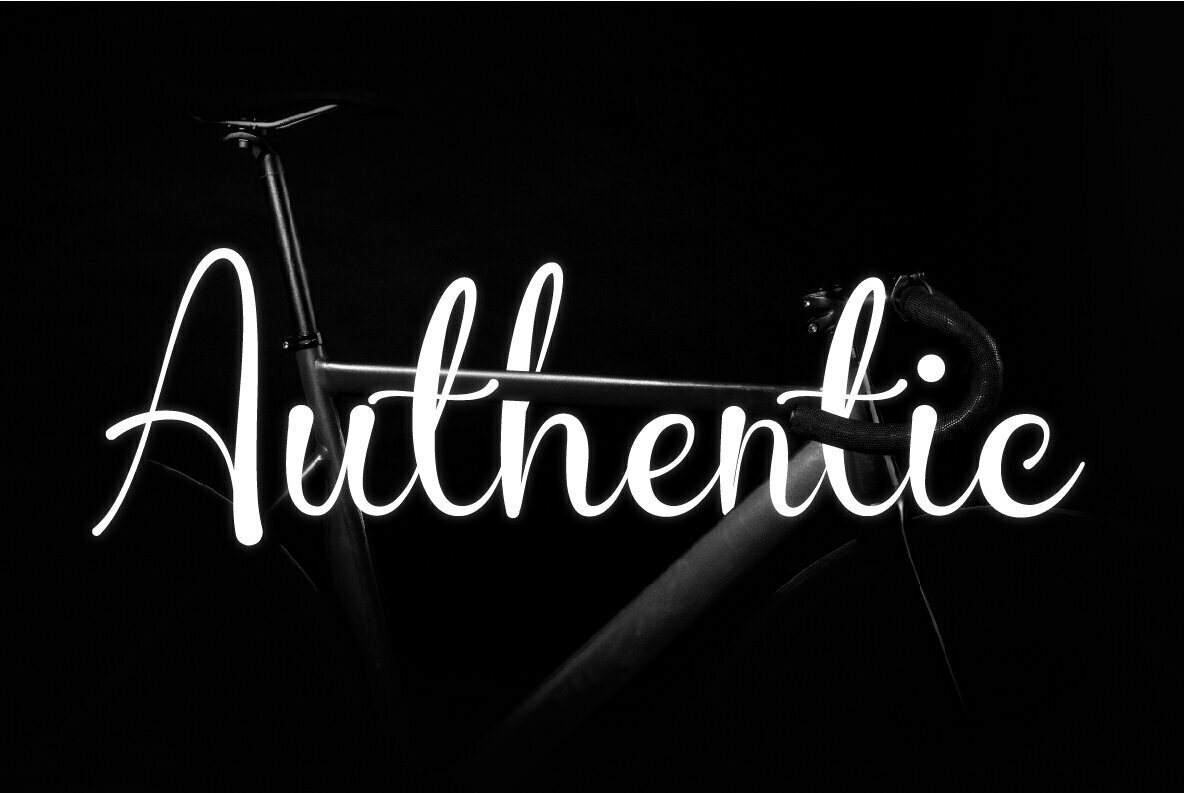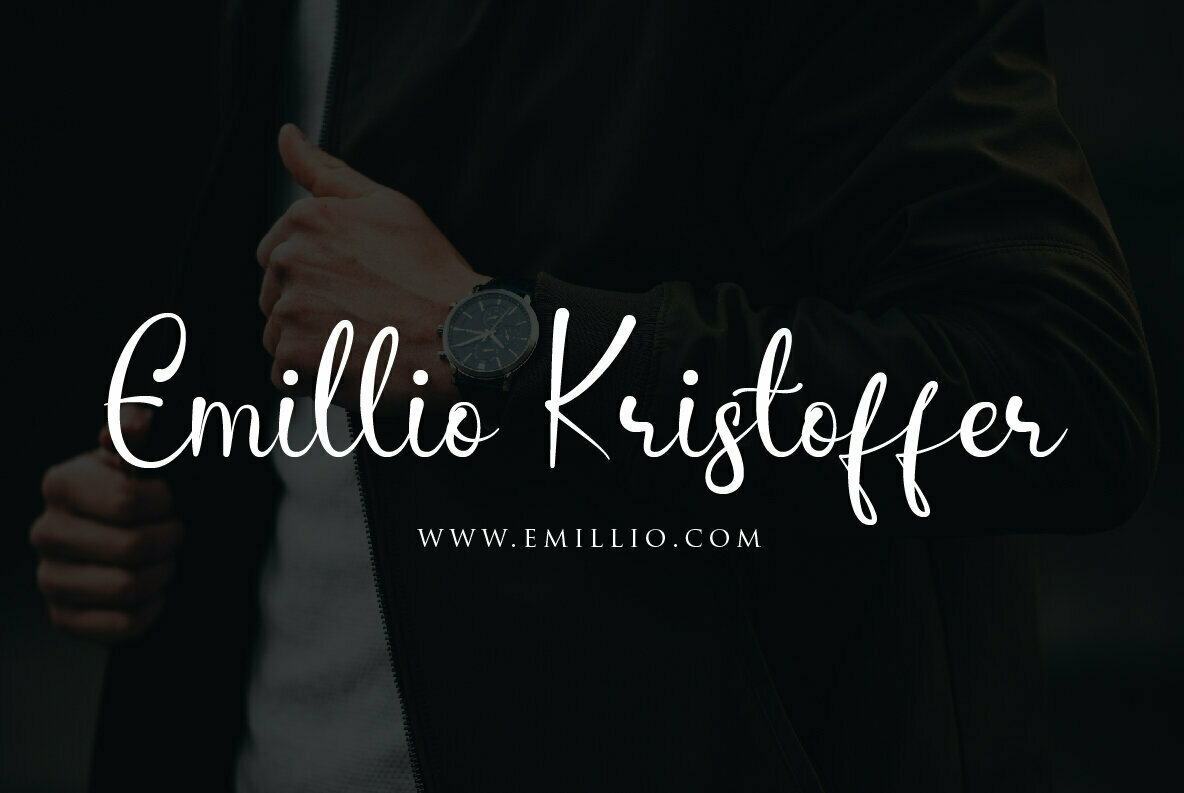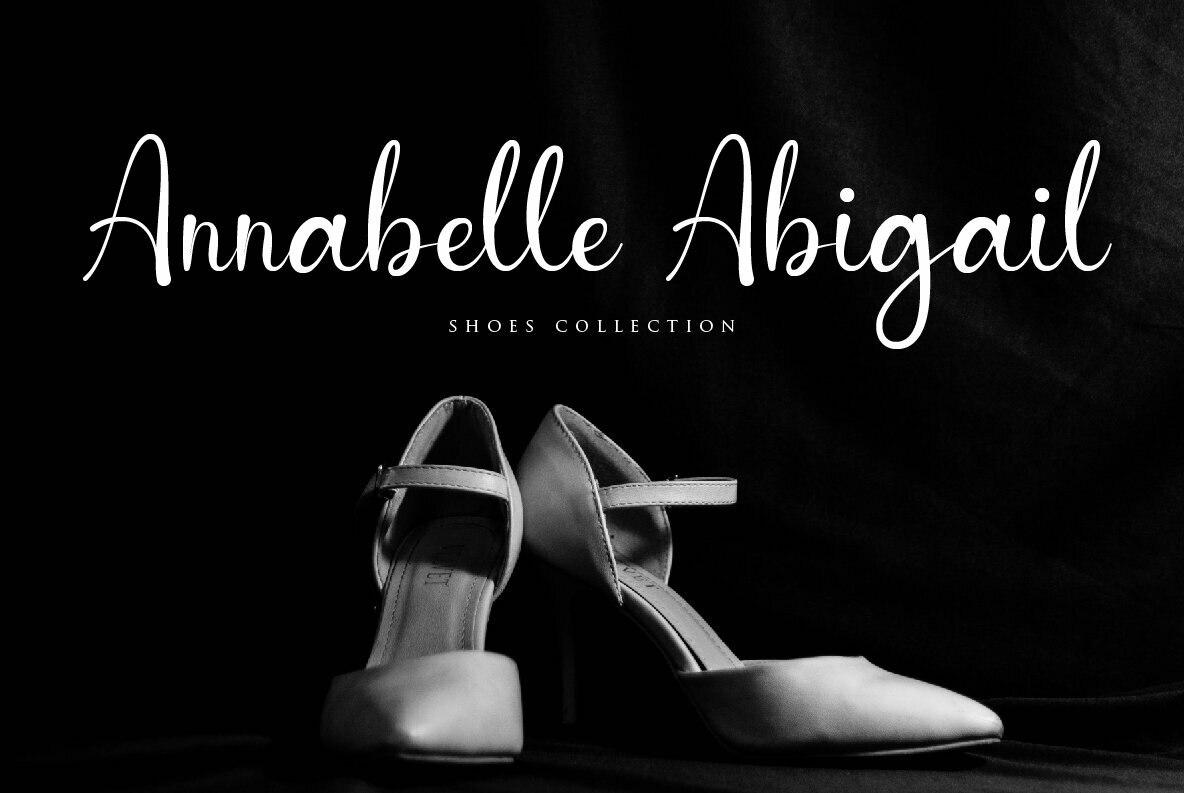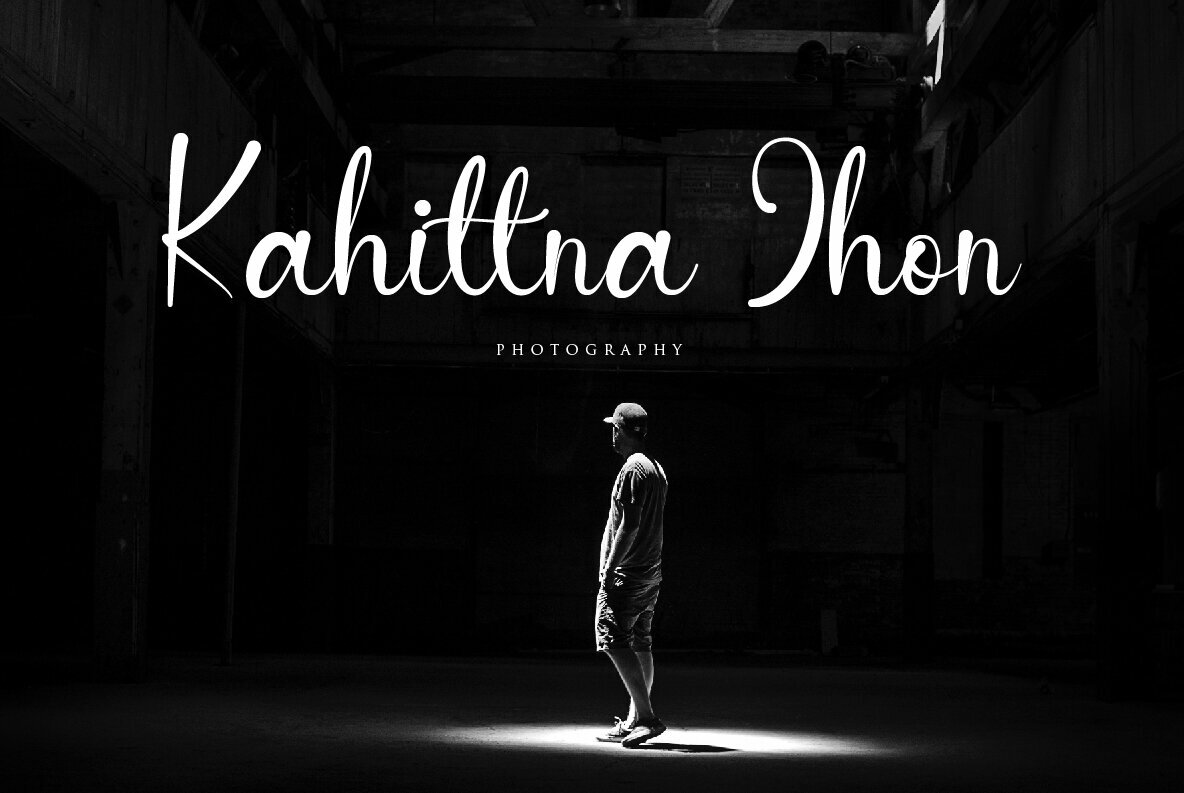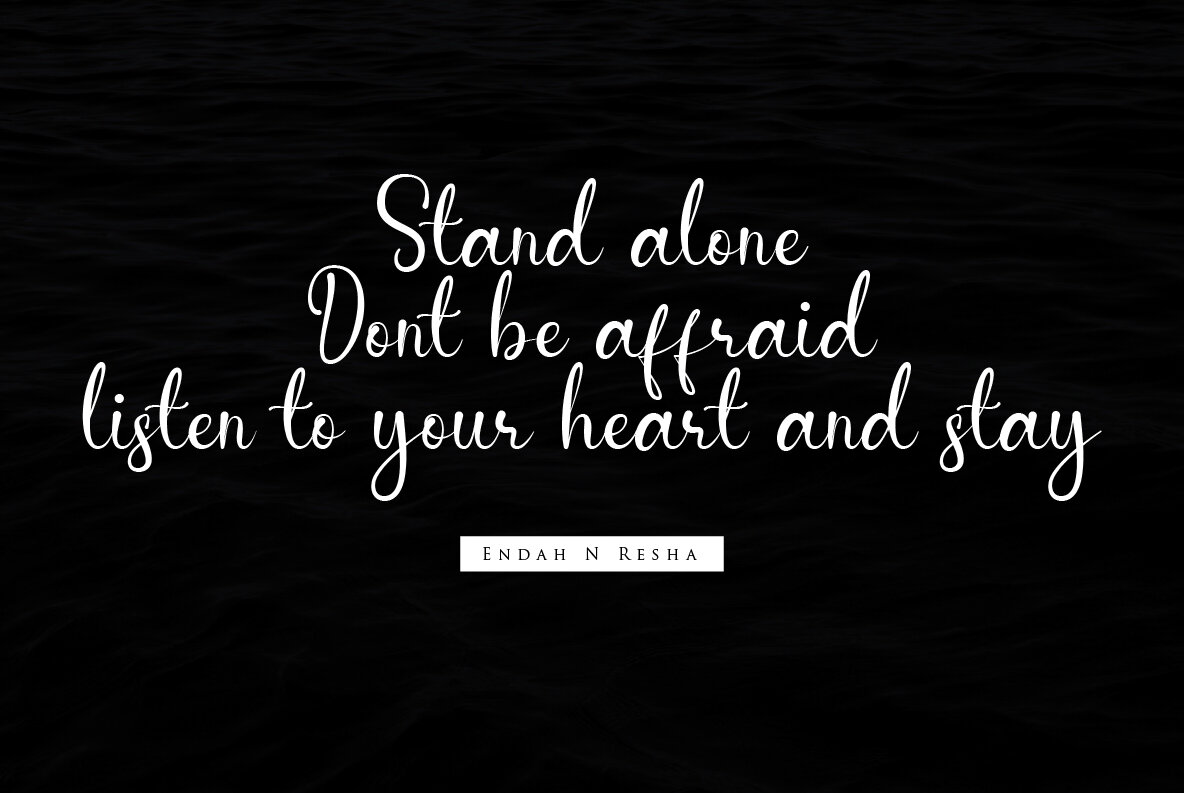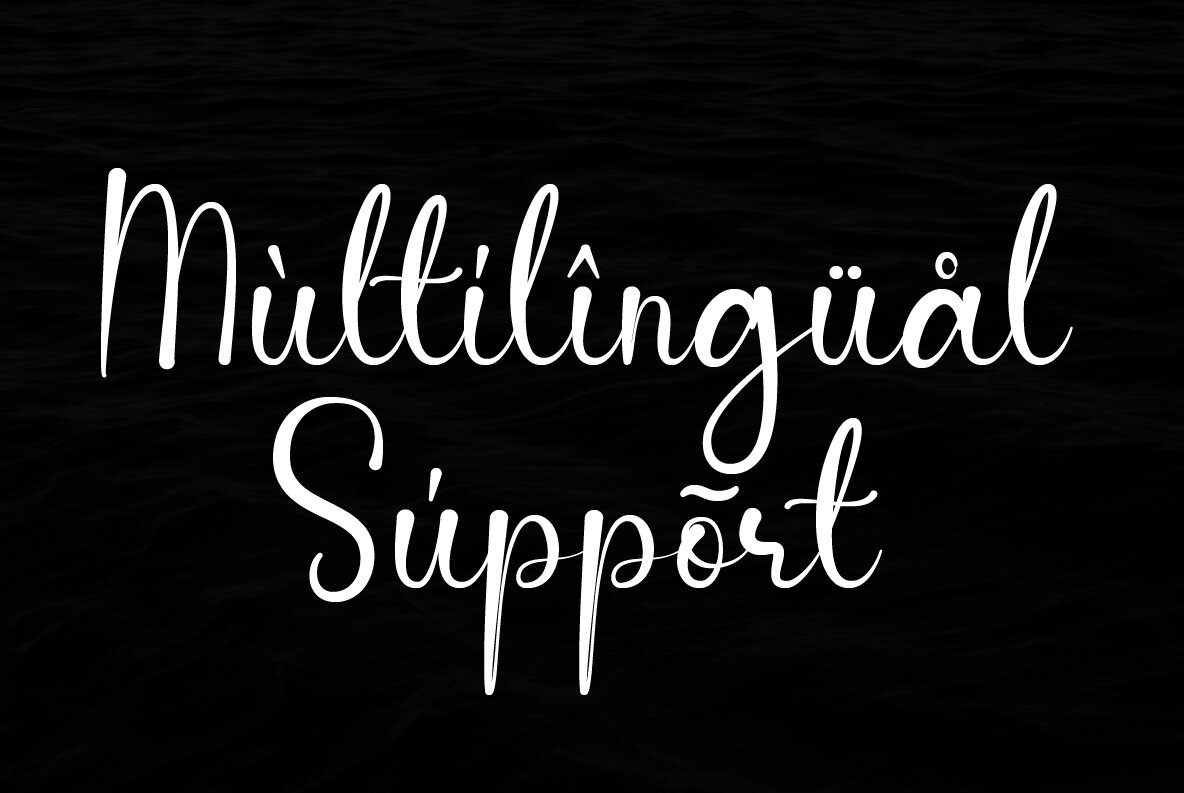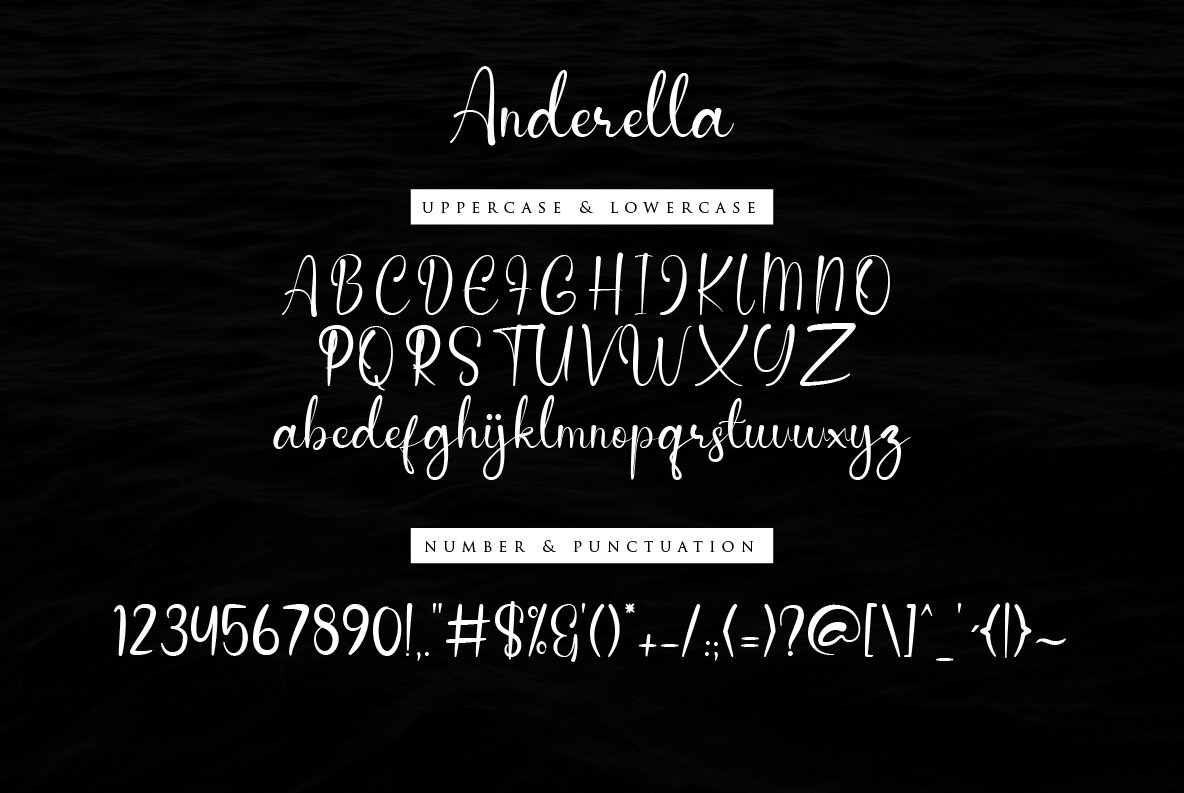
Anderella Font
Anderella
With its elegant and natural handwriting style, Anderella by Sabrtype Studio offers a versatile option for a myriad of creative endeavors. Ideal for logos, branding, invitations, and stationery, this font can also elevate wedding designs, social media content, and advertisements. Whether you're designing product packaging, posters, or fashion labels, Anderella provides a unique touch that is both sophisticated and relatable. Furthermore, Anderella is equipped with multi-language support, accommodating a wide array of linguistic requirements, making it a suitable choice for projects with global reach. The simplicity and delicate charm of its strokes lend a personal feel that stands out in photography watermarks, special event promotions, and compelling quotes.Anderella: Artisanal Handwriting for Diverse Projects